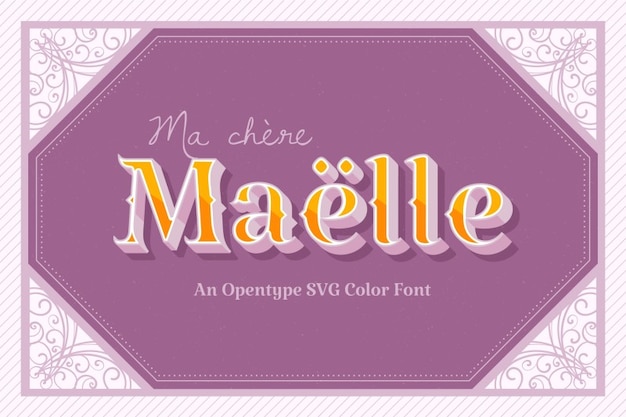
Maëlle Font
Maëlle is the epitome of font elegance, like a modern twist on a classic tale. It's the decorative flair that adds a touch of timeless beauty to your text. With its sleek lines and graceful curves, Maëlle brings an air of sophistication to your designs, making every word feel like a work of art.